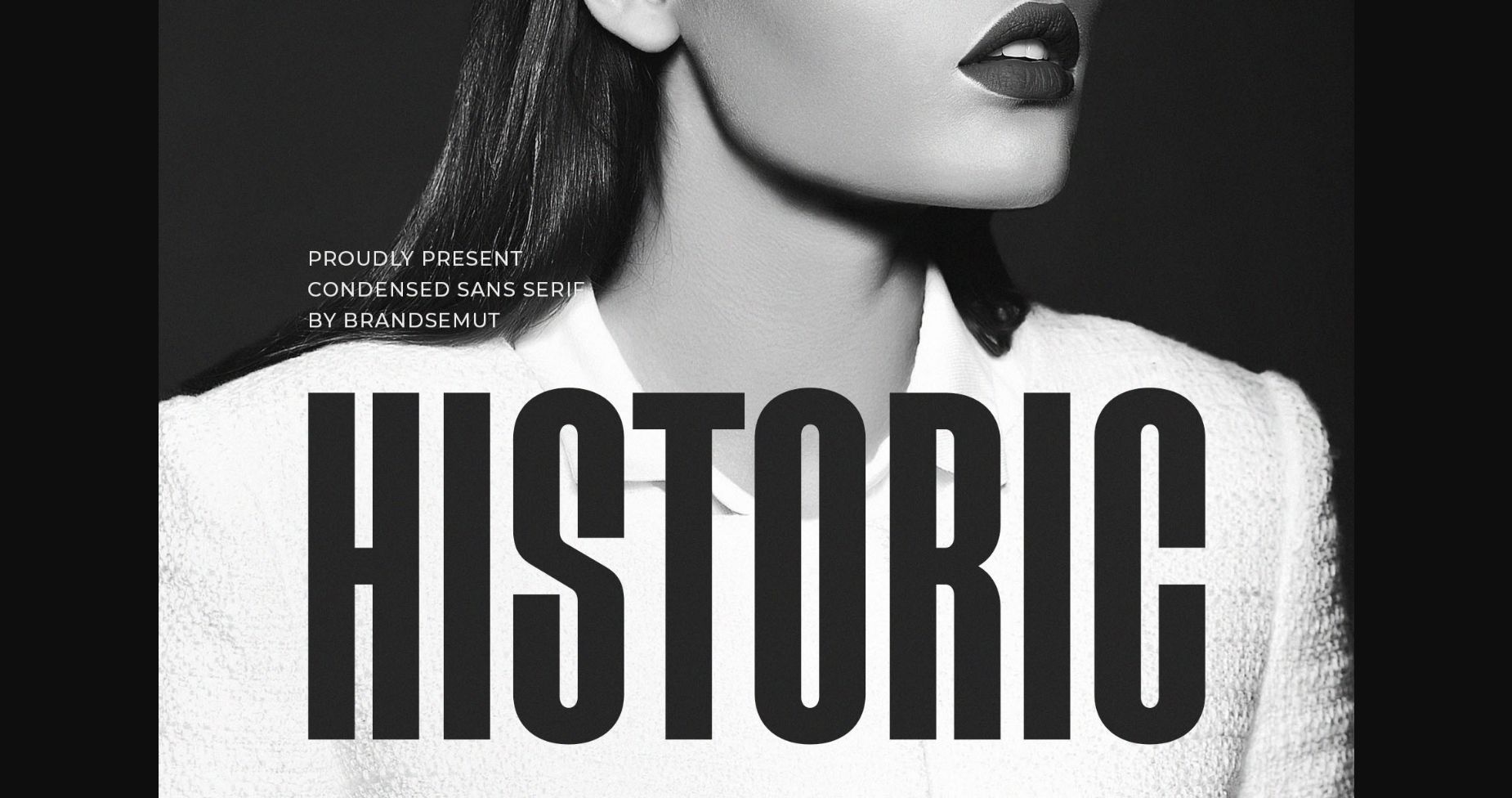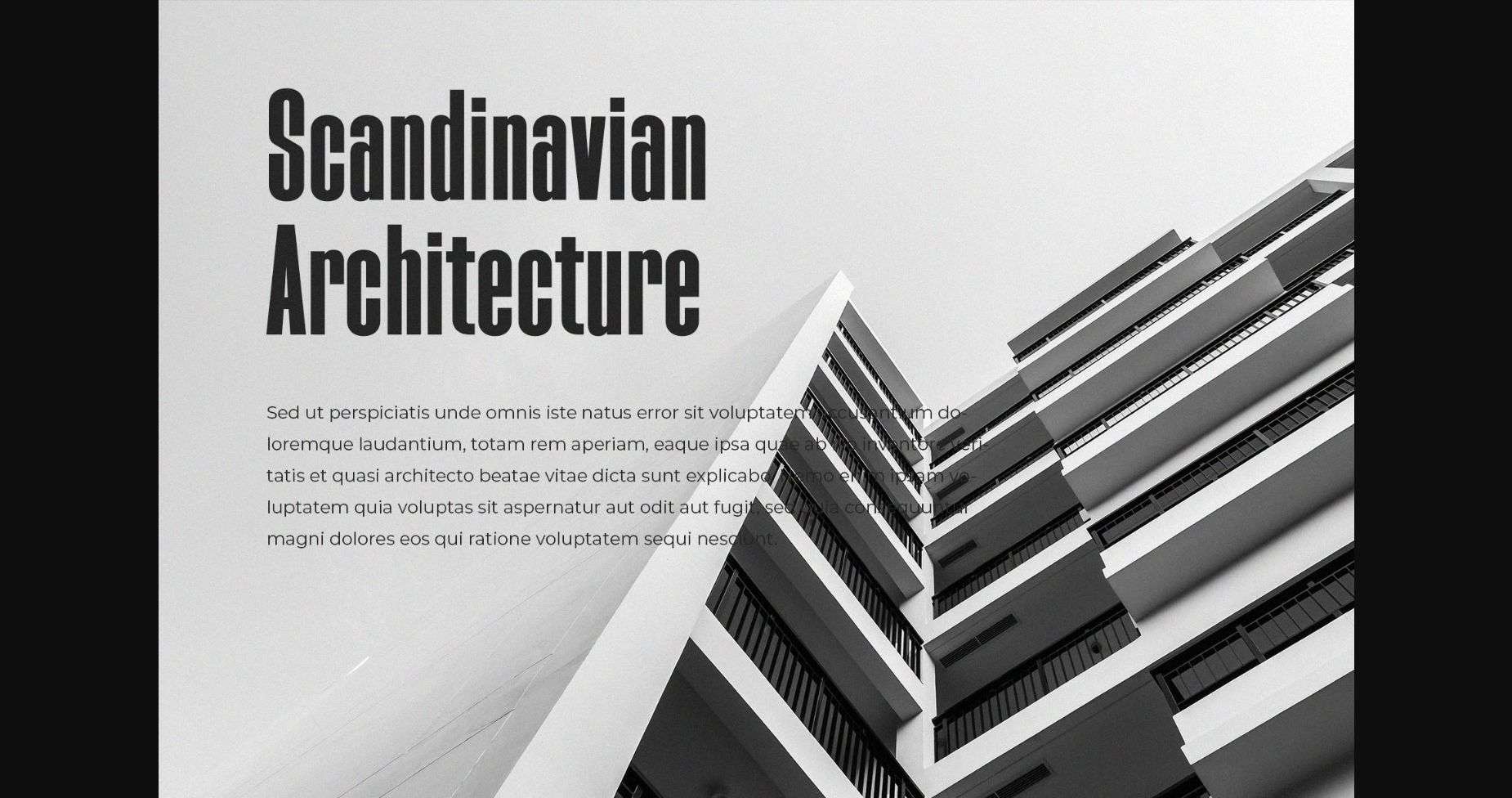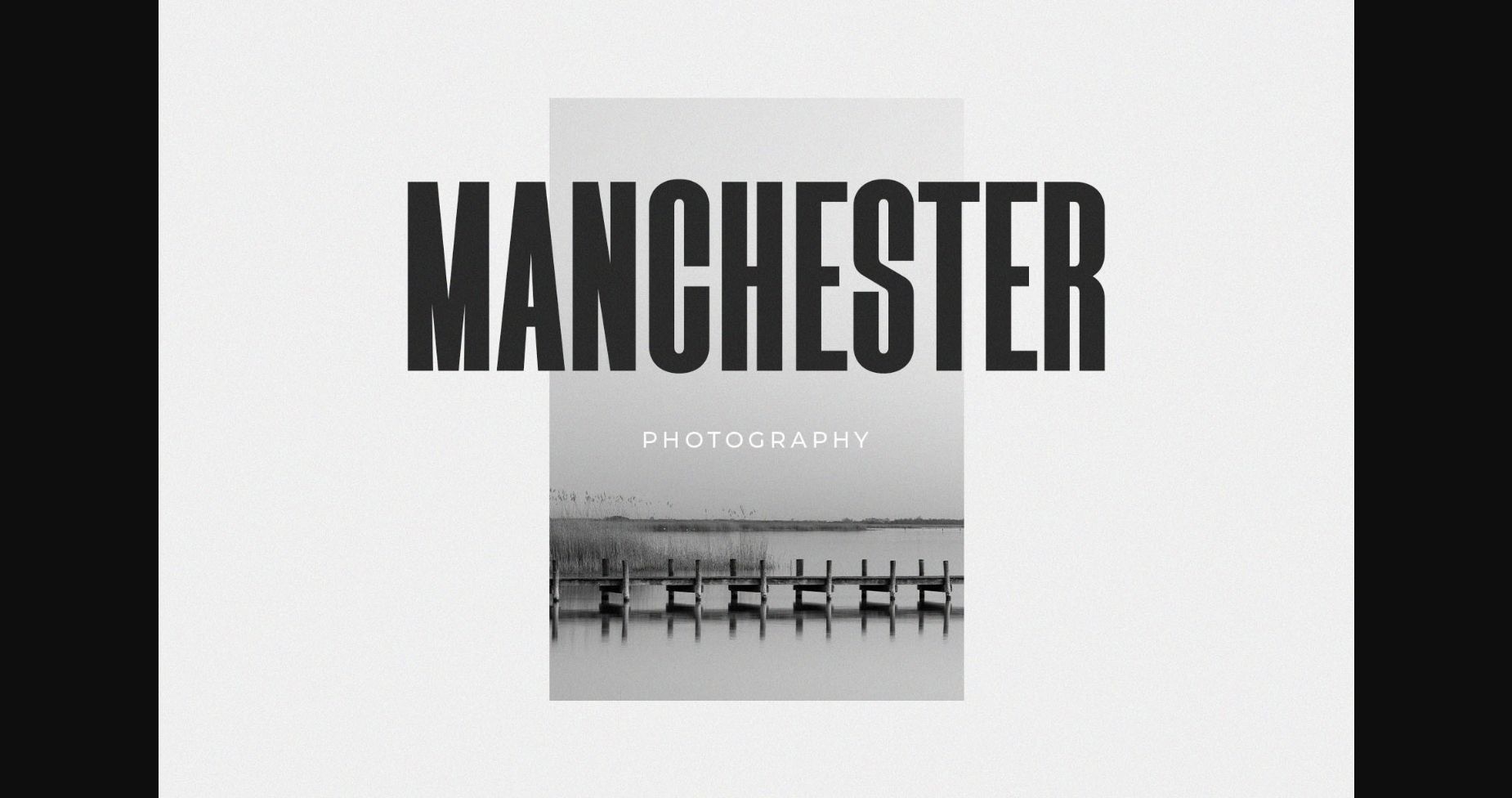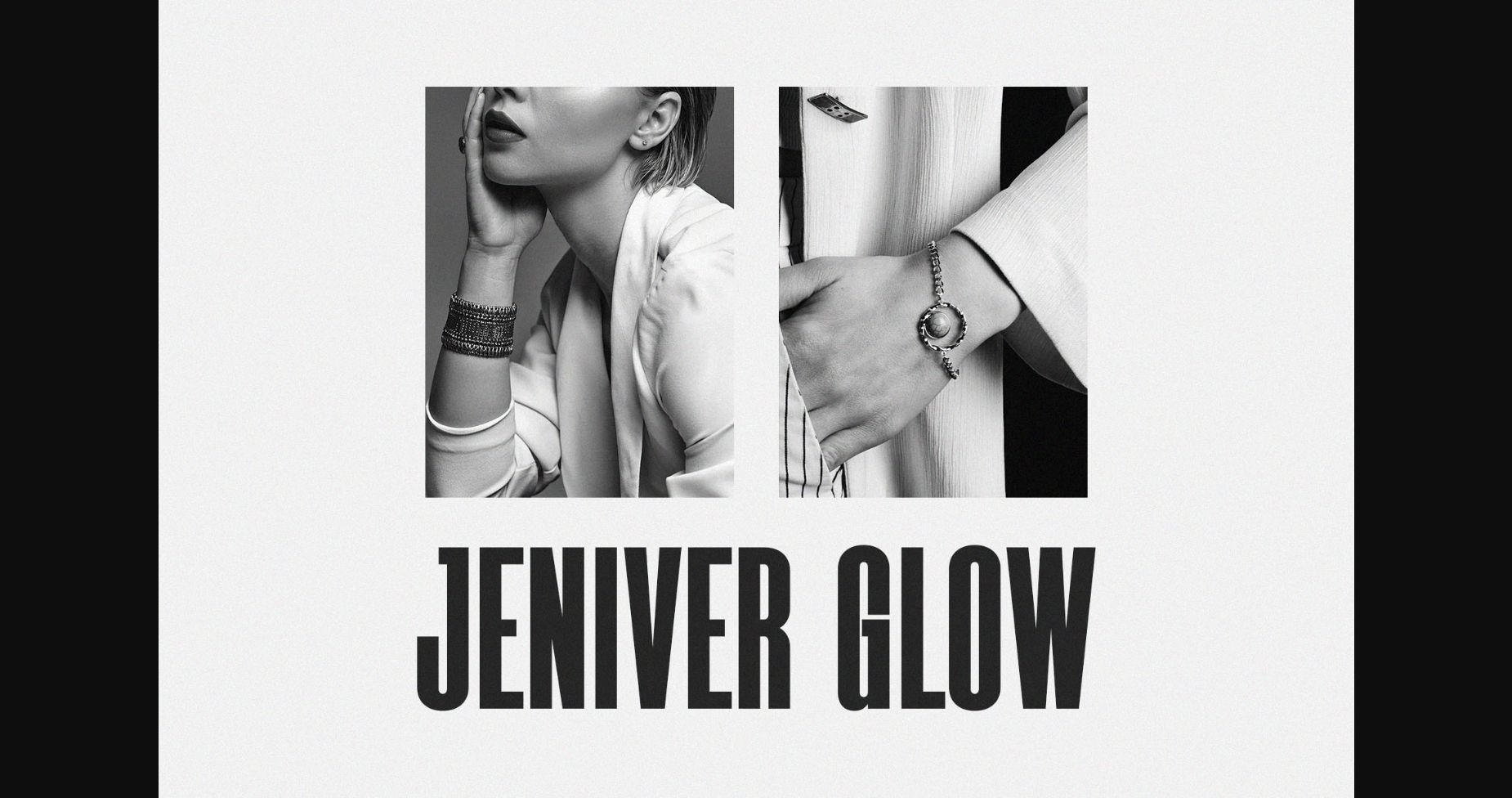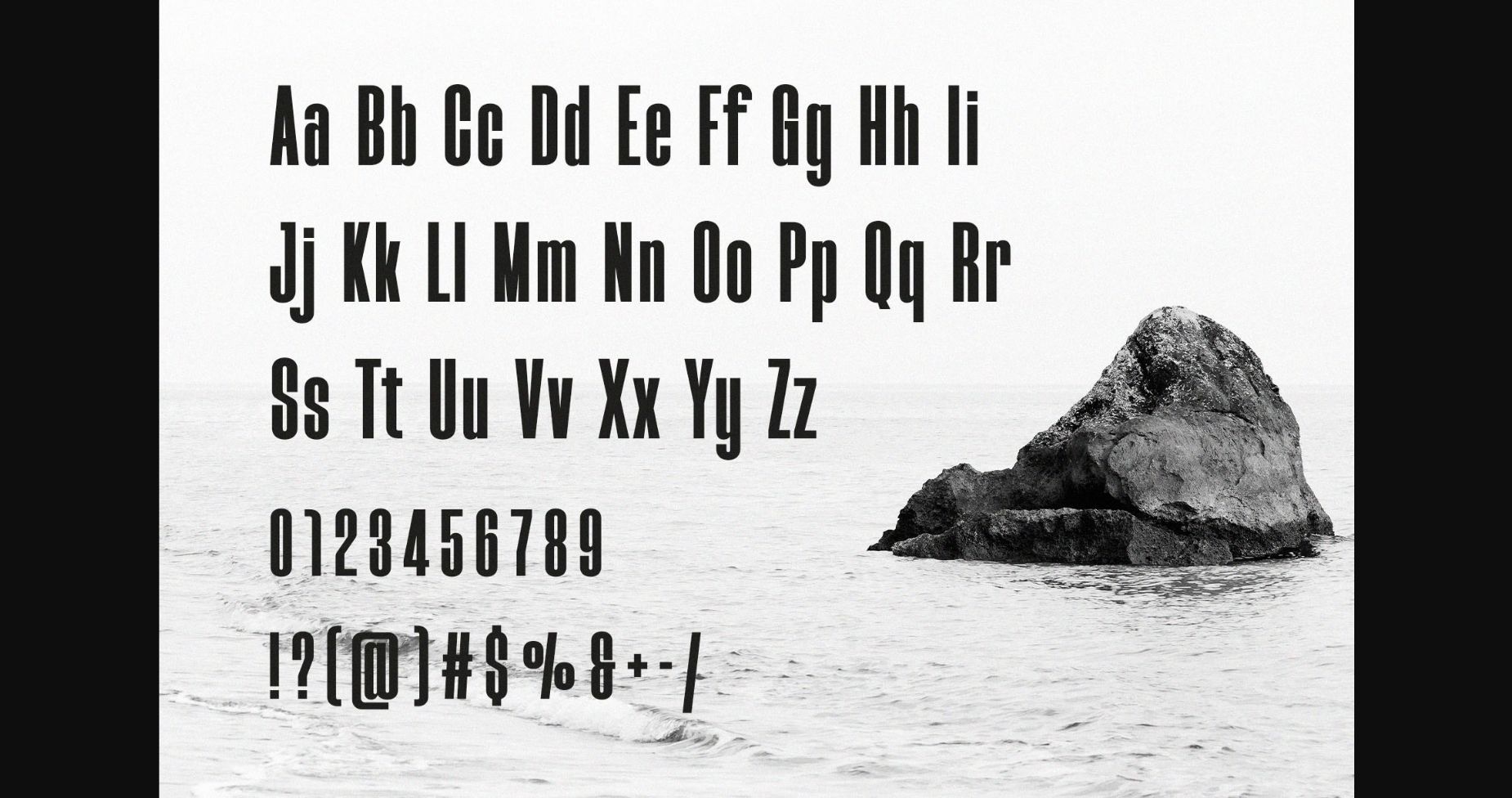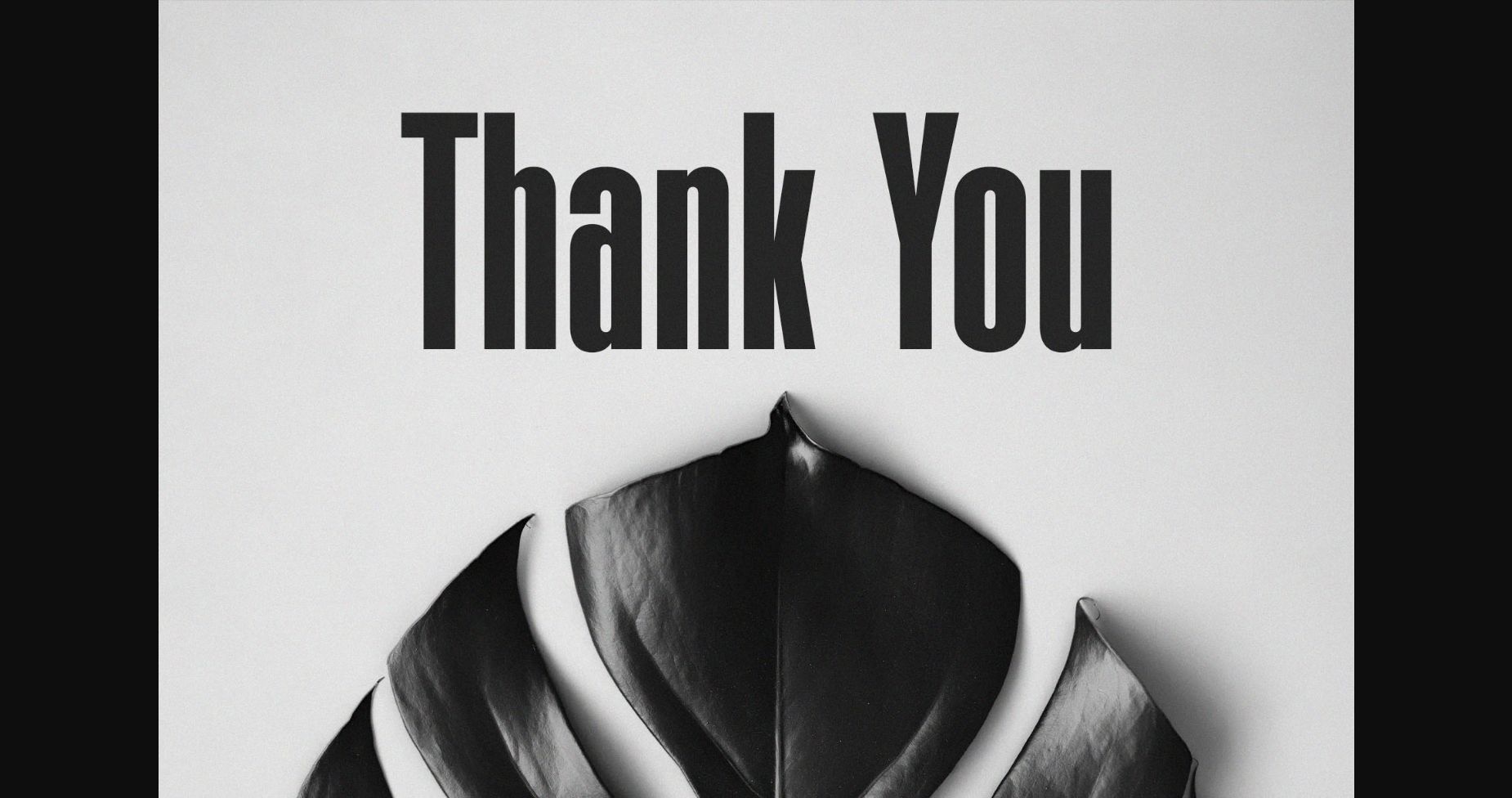
About Historic Font
Introducing Historic Condensed Sans Serif
Historic is a modern and simple font, best used as a display for headings, logos, branding, magazines, product packaging, and invitations. Historic comes with clean lines and smooth curves giving any project an extra touch of class.